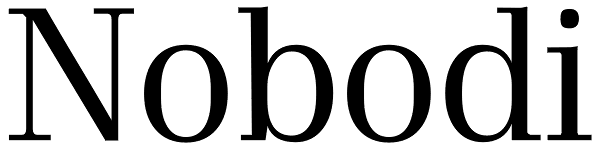
Nobodi
This Bodoni-like font sets out to slightly square off rounded shapes, adding a very slight curve to the join from the square serif and stem, and minimizing and softening the pronounced bulbs found in Bodoni. There are hints of Walbaum and Melior but...